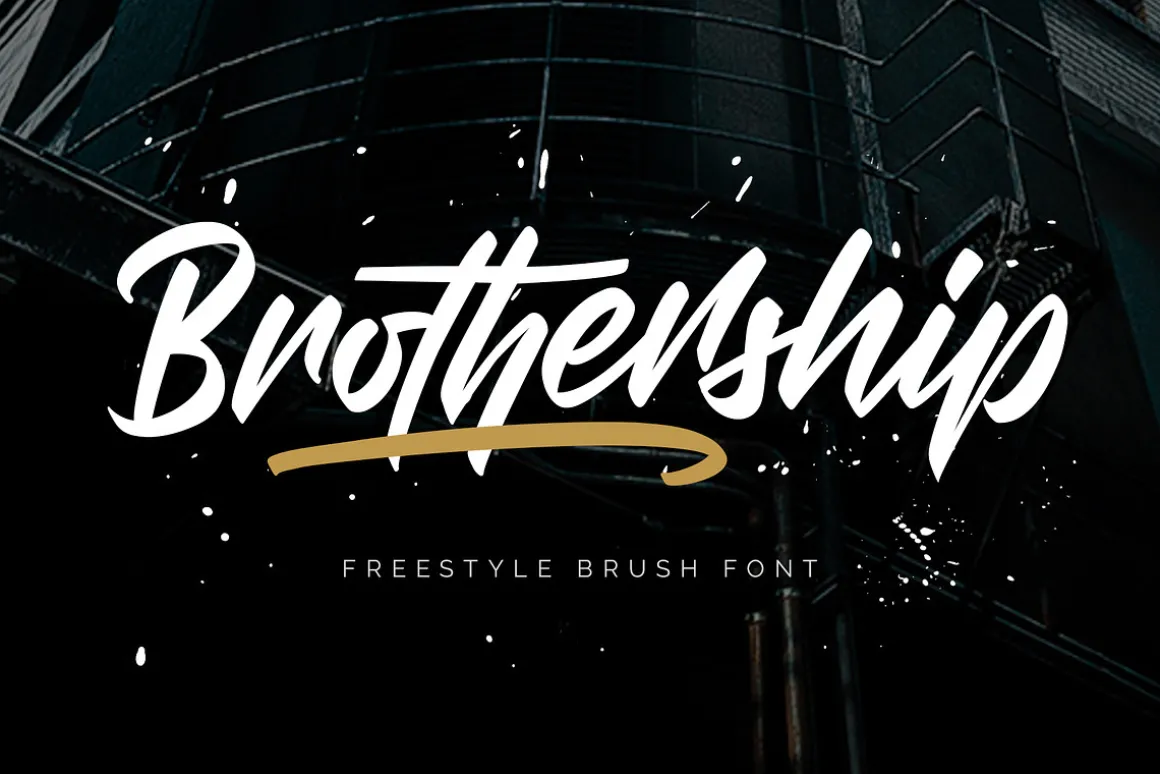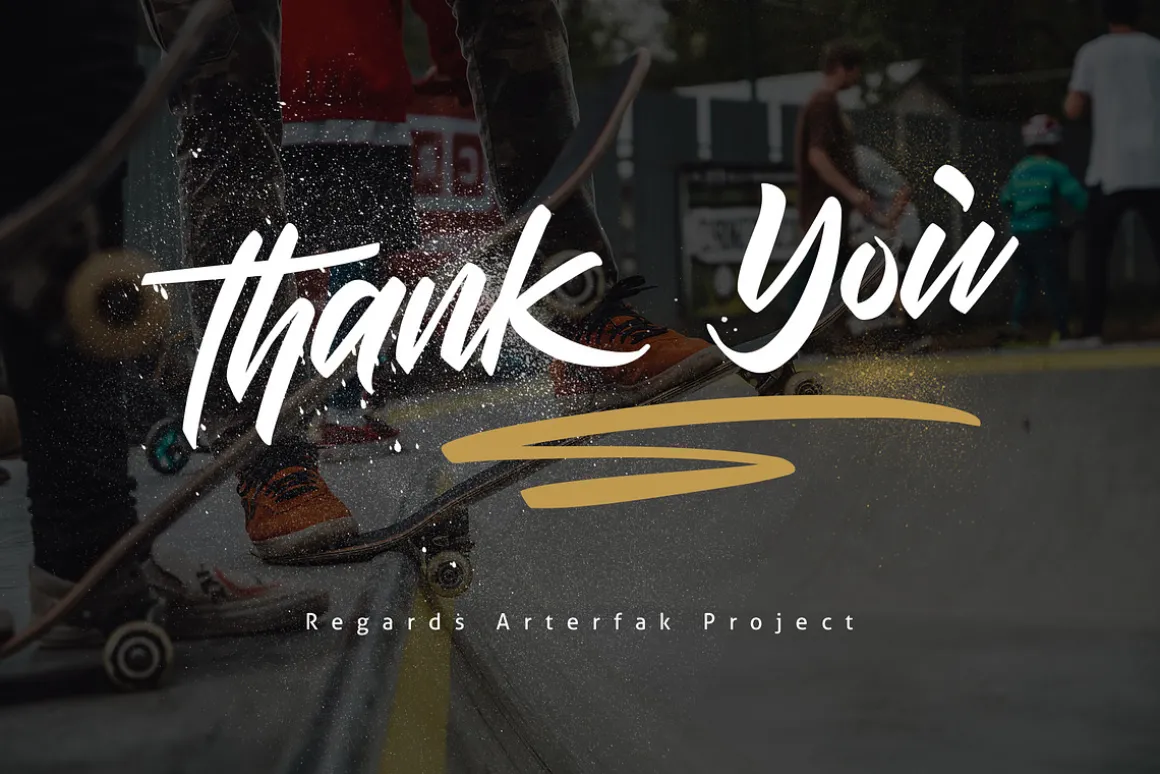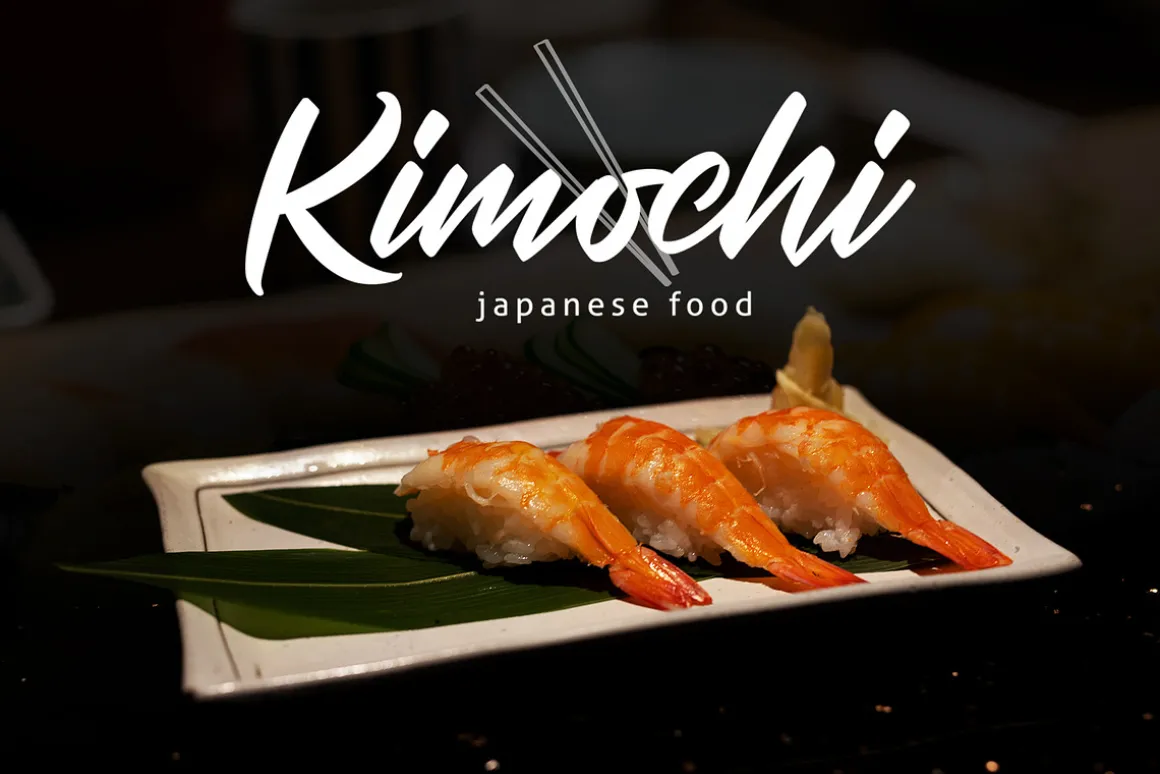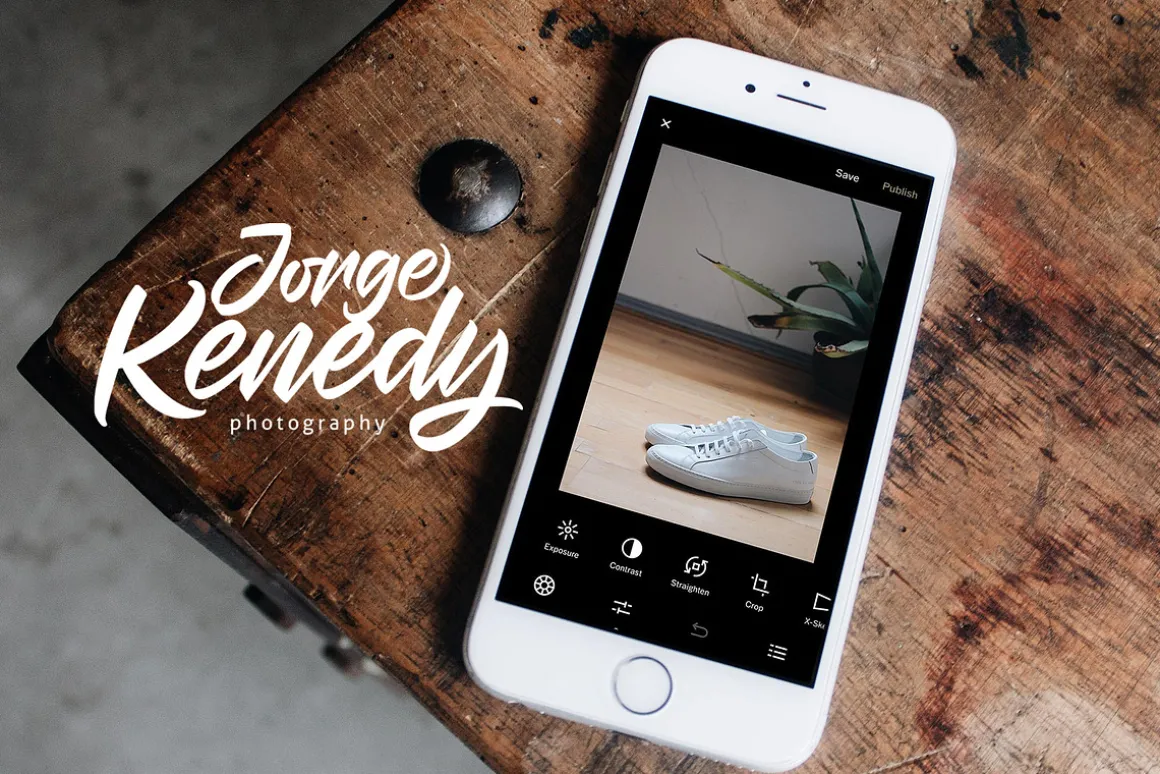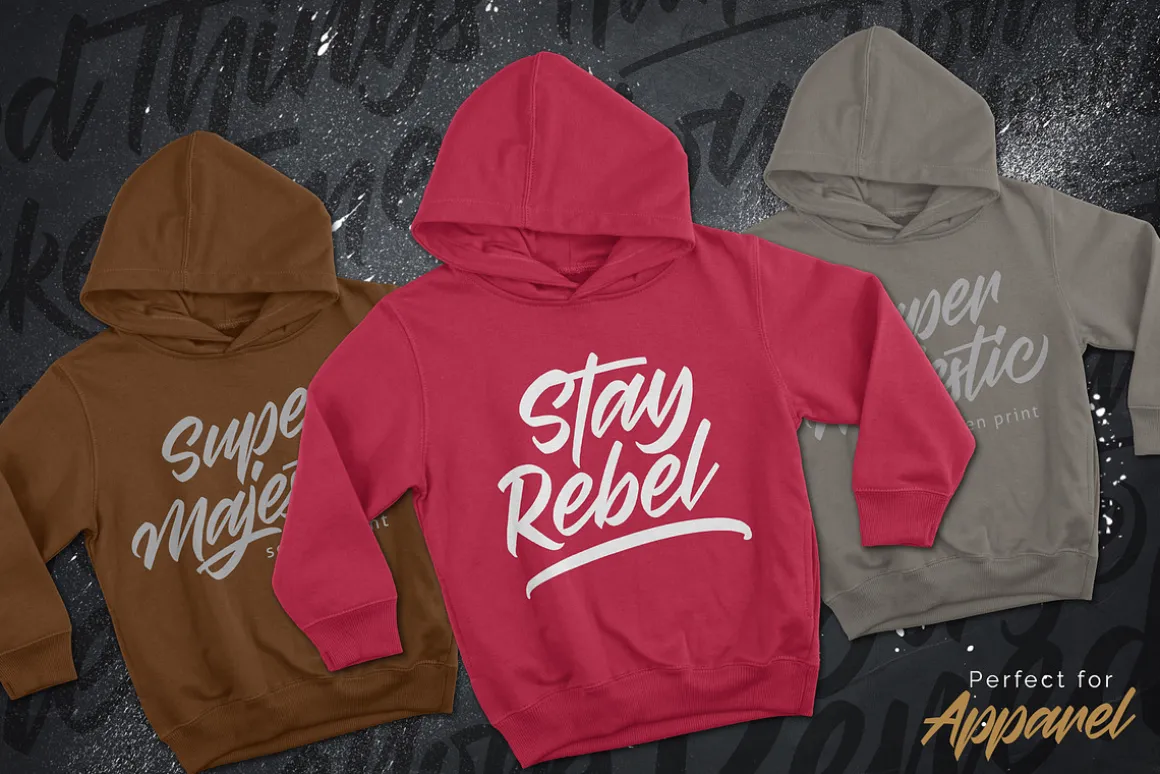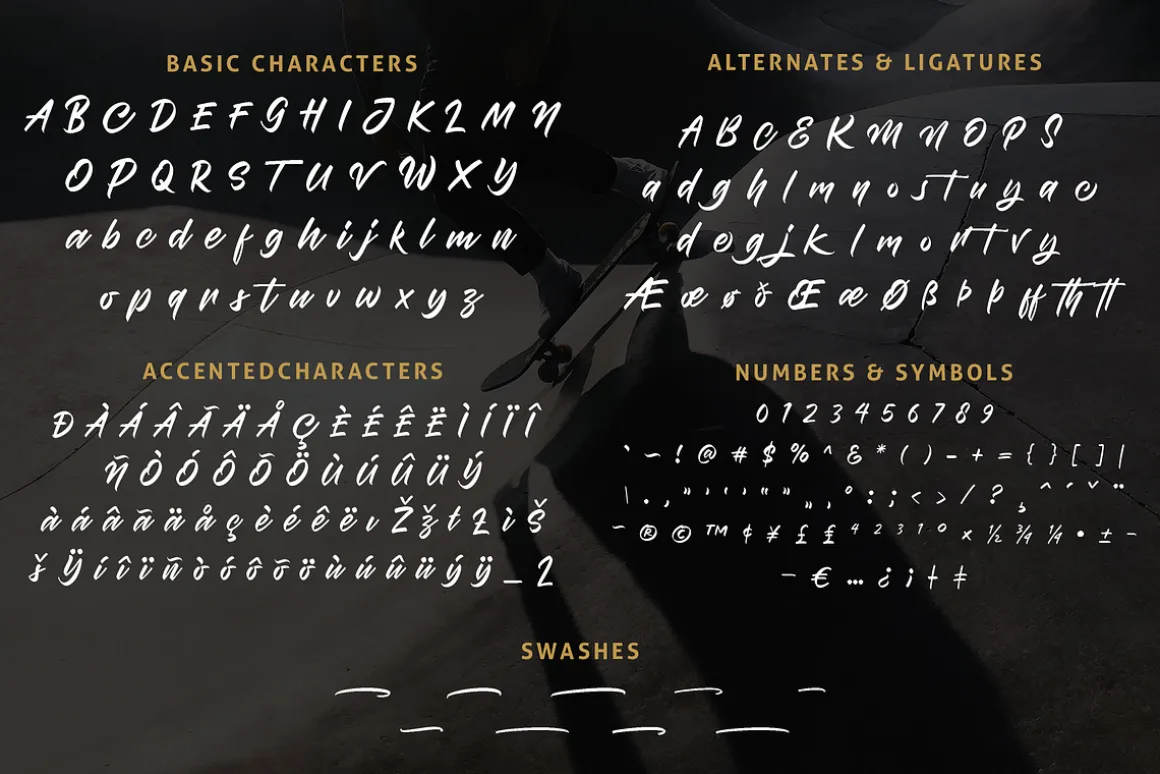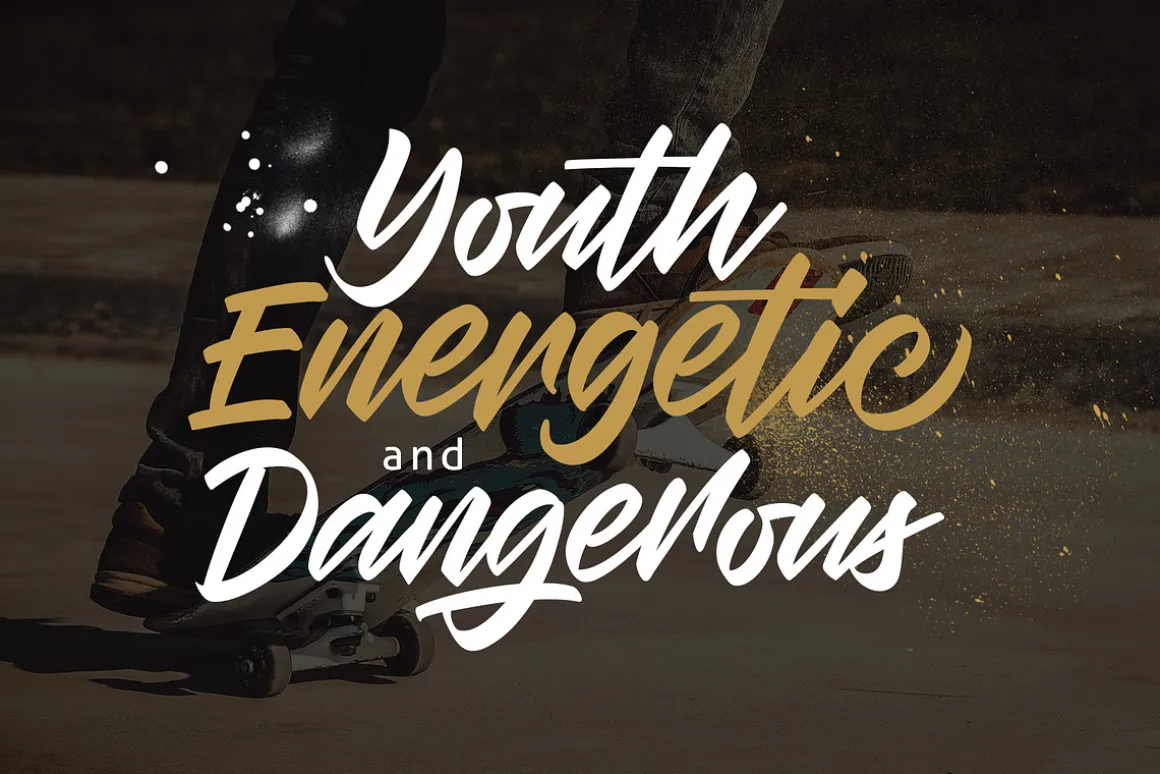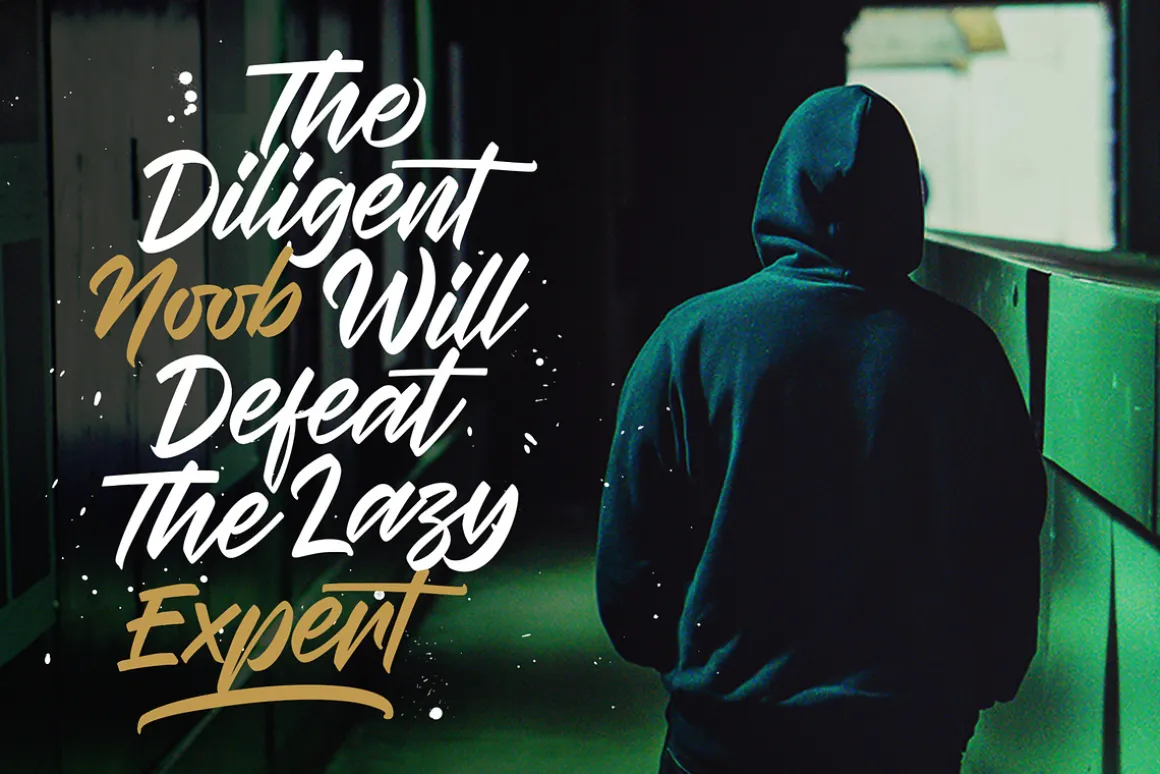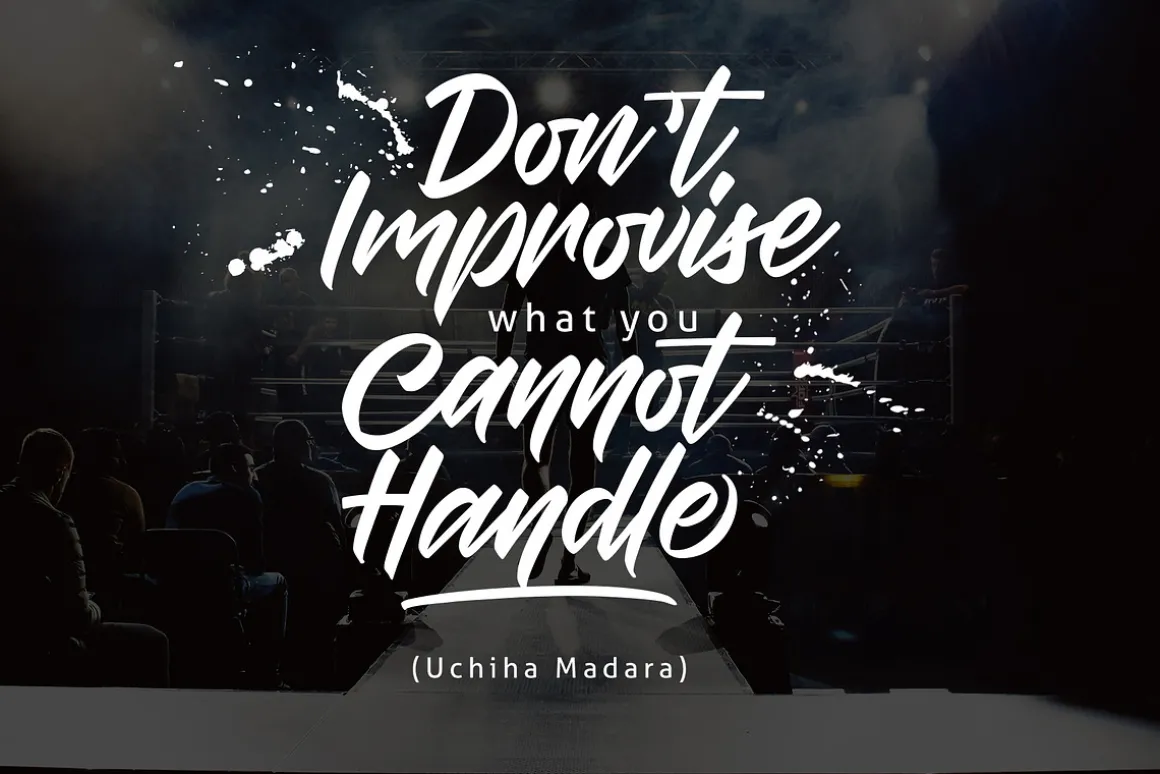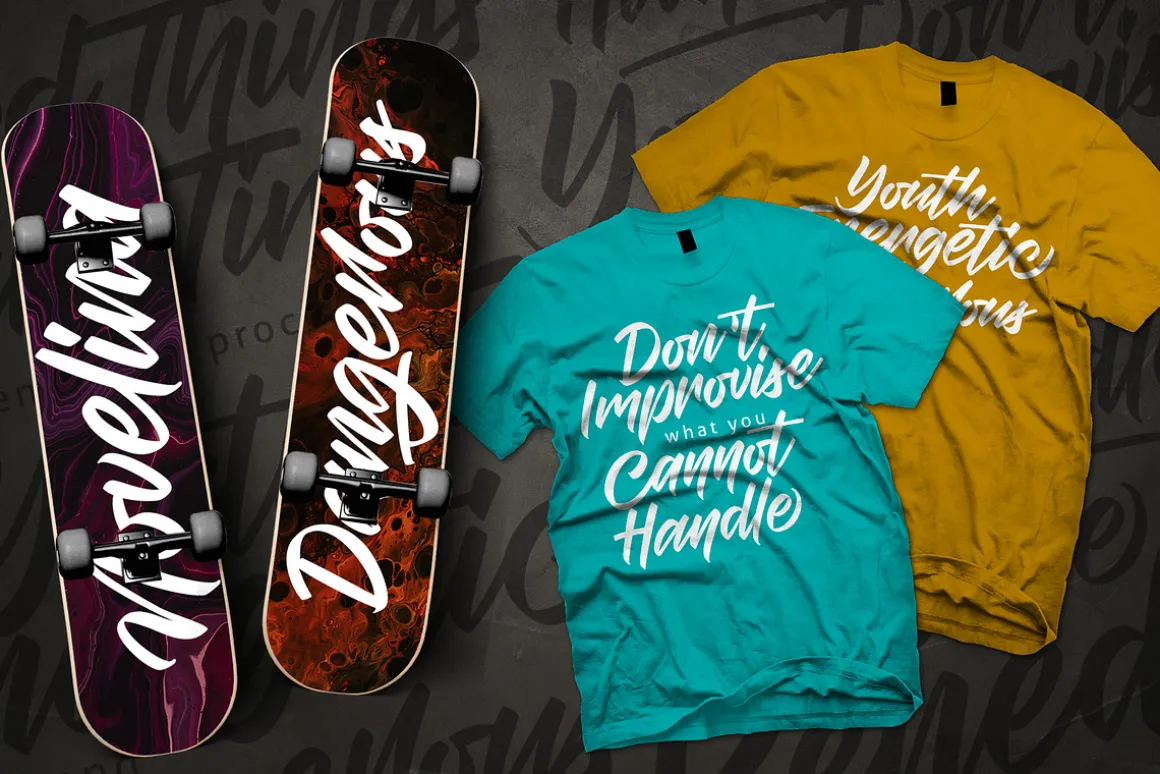
Introducing Brothership. A freestyle brush font created by expanding my brush lettering artwork which pressure-free about concepts but has a joyful lettering experience that applied into this font. This font visualizes flexible letterforms and natural strokes that give an energetic impression.
Brothership is a display font equipped with some alternates characters and custom swashes to ease you creating a beautiful custom lettering. Brothership is perfect for apparel, merchandise, labels, logotype, posters, quotes, book covers, sports, prints, and advertising needs.
Font featured :
- Uppercase
- Lowercase
- Numbers & symbols
- Stylistic alternates
- Accented characters : Afrikaans, Albanian, Danish, Dutch, English, Estonian, Finnish, French, German, Icelandic, Italian, Norwegian, Portugese, Spanisch, Swedish, Zulu.